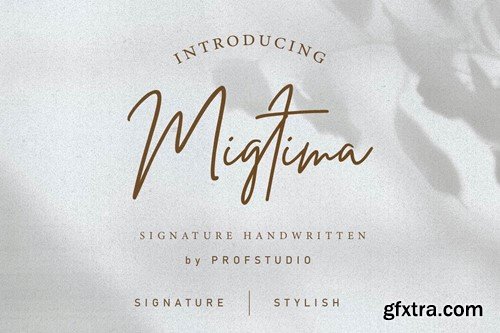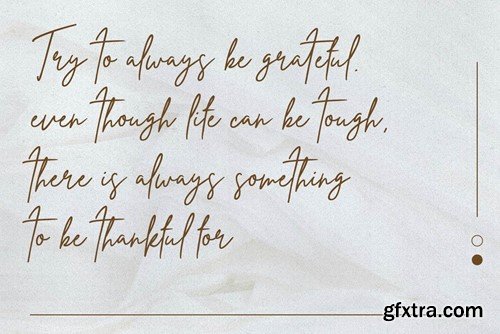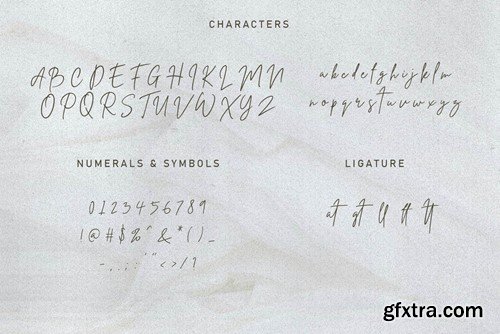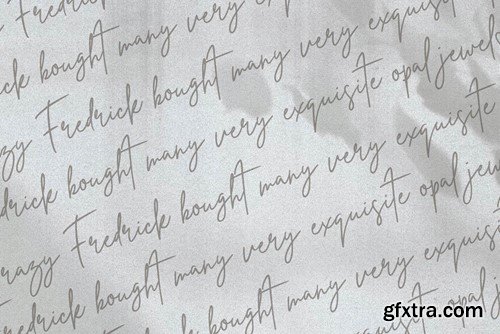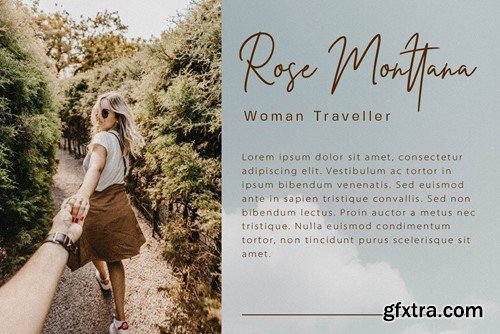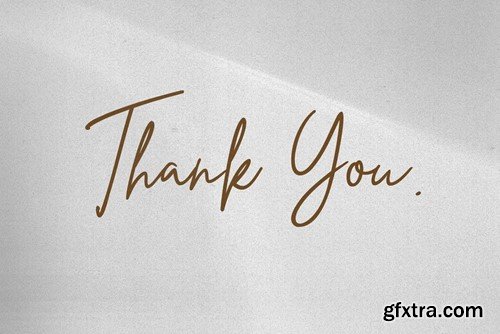
米格蒂马 - 签名手写字体 VFTS7Z2
Migtima - Signature Handwritten Font
**Hi Ladies and Gentleman ! Proudly present best signature font “Nashville” for you business. Migtima - Signature Handwritten Font which can be interpreted professional. we keep this font looks elegant, luxury, premium, modern, stylish, readable, stylish, catchy and easy to use. Migtima - is the great choice for photography, branding, wedding event, signature or signature logo design magazine and many other design project. Migtima here to make your work to high level!!! Features: Standar character A-Z and a-z Numberial and Functional File include: Migtima OTF Migtima TTF Migtima WOFF